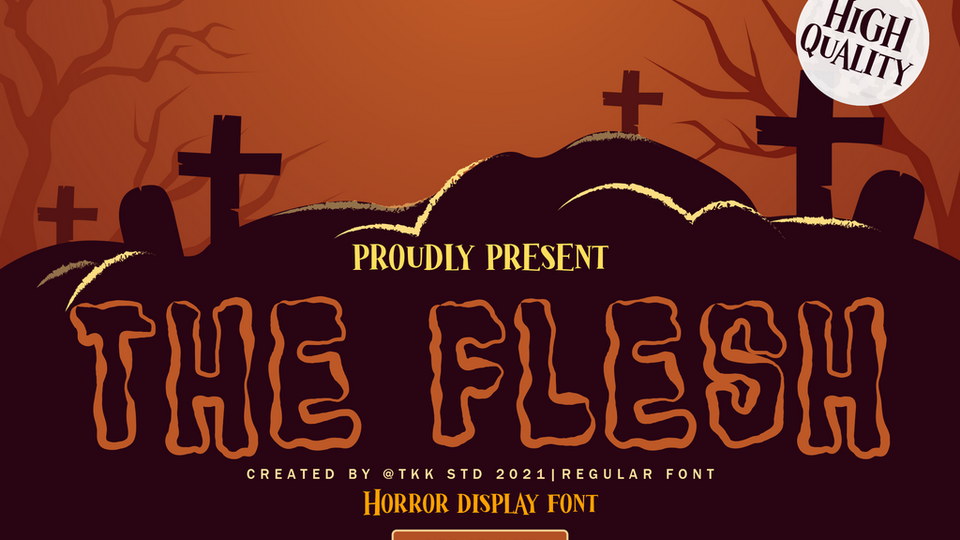
Download The Flesh font, a hand crafted typeface that will give you a chill down the spine, the ghostly effect, and they tremble on the audience voice, the intense, scary sound that was howling in the alley…